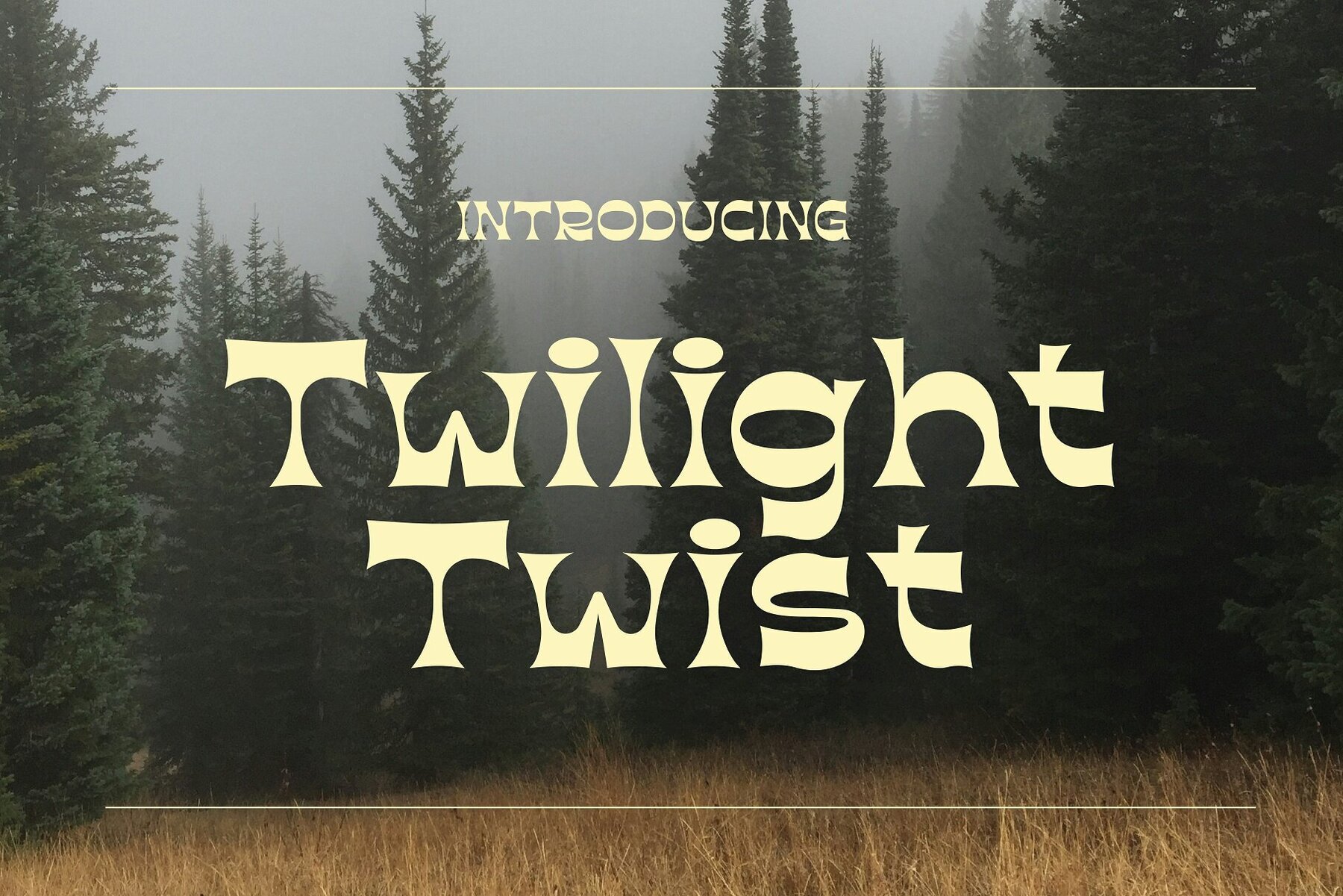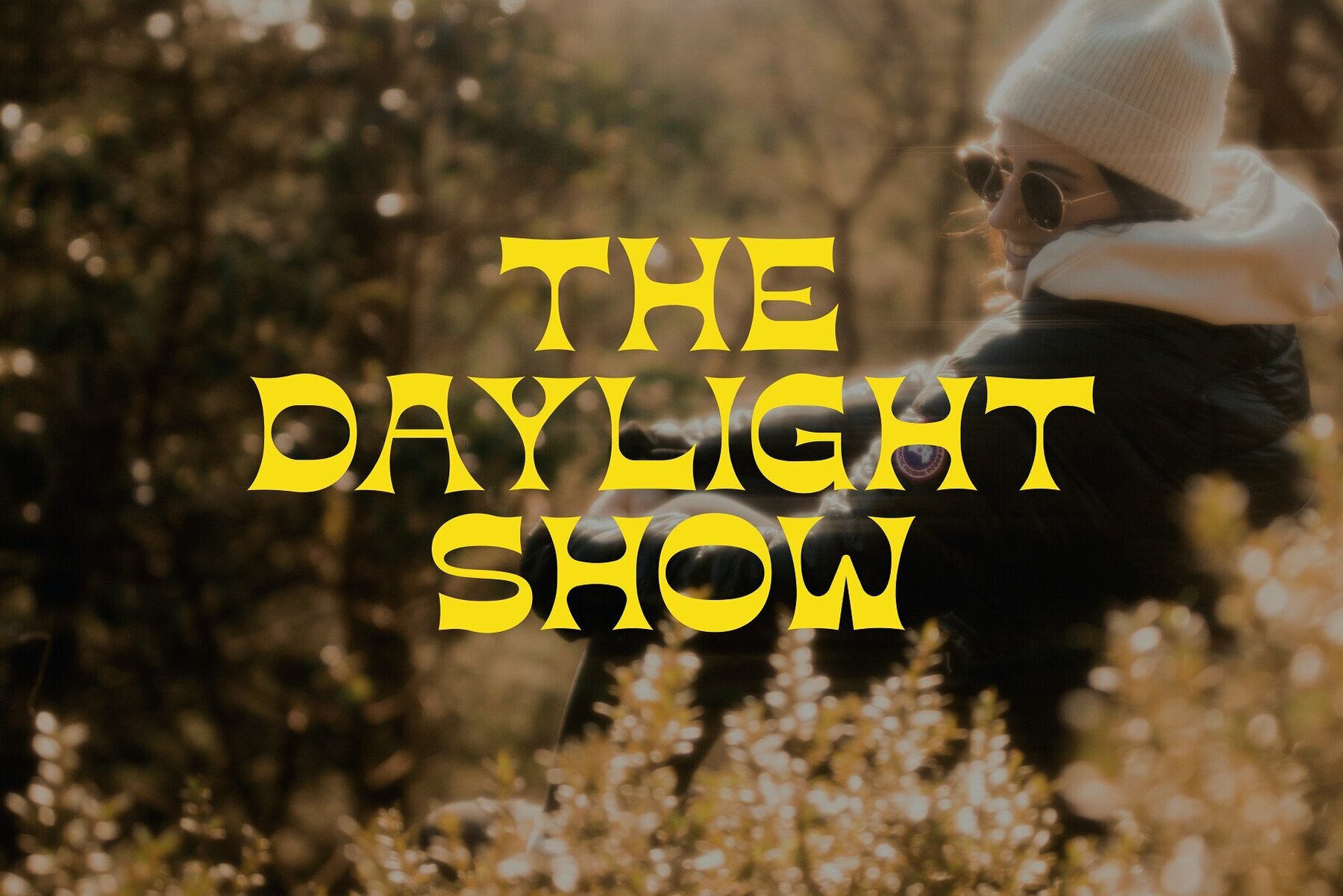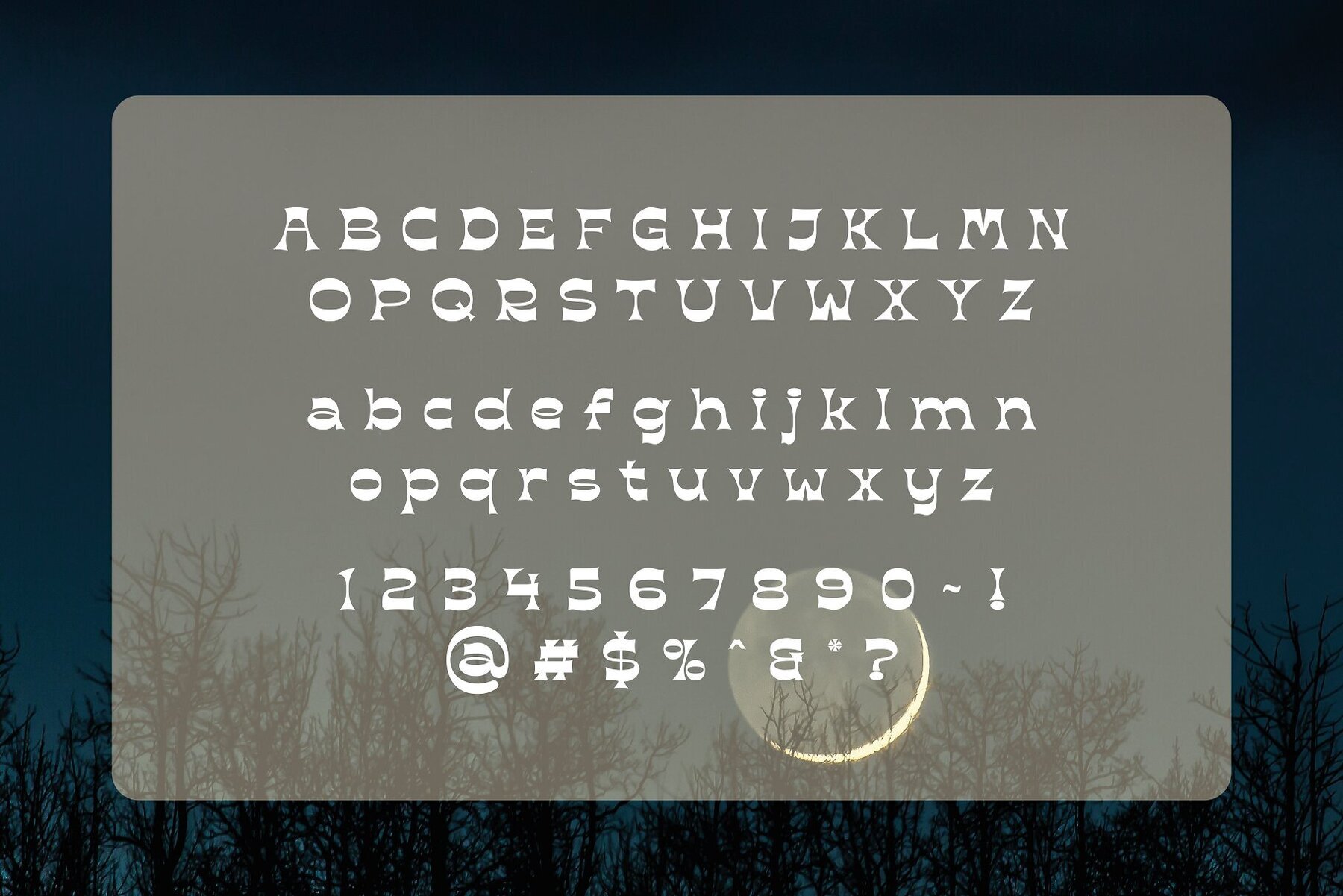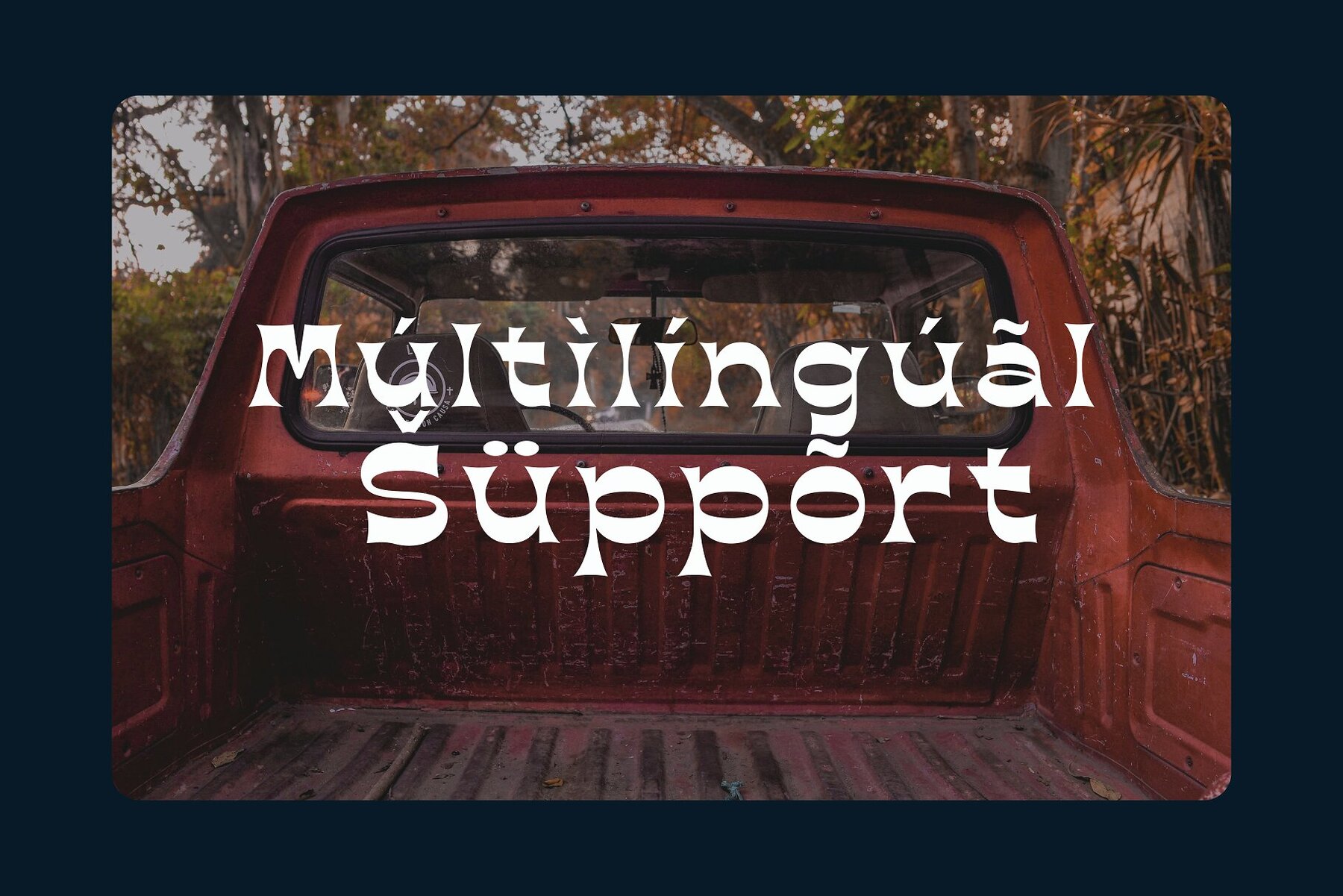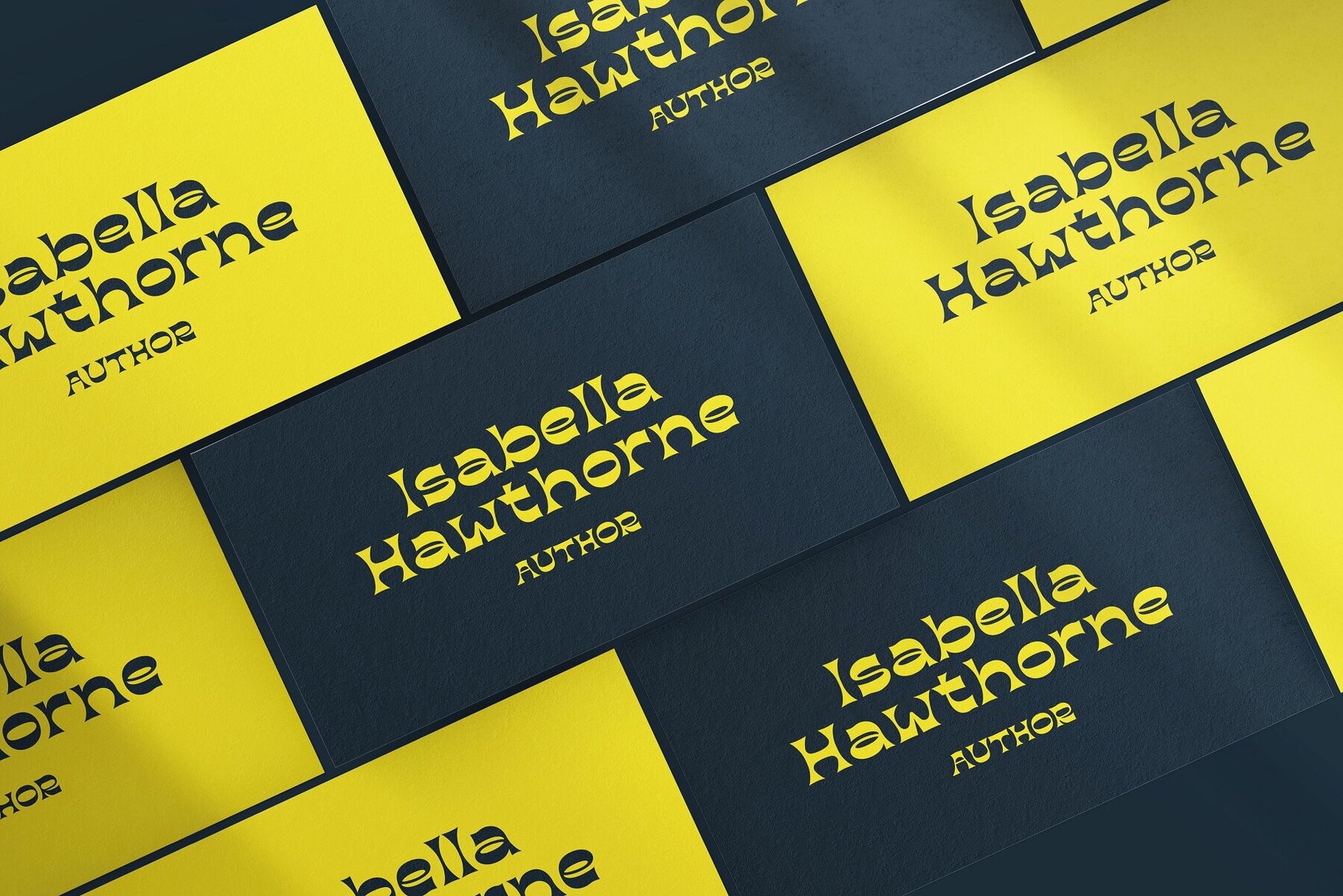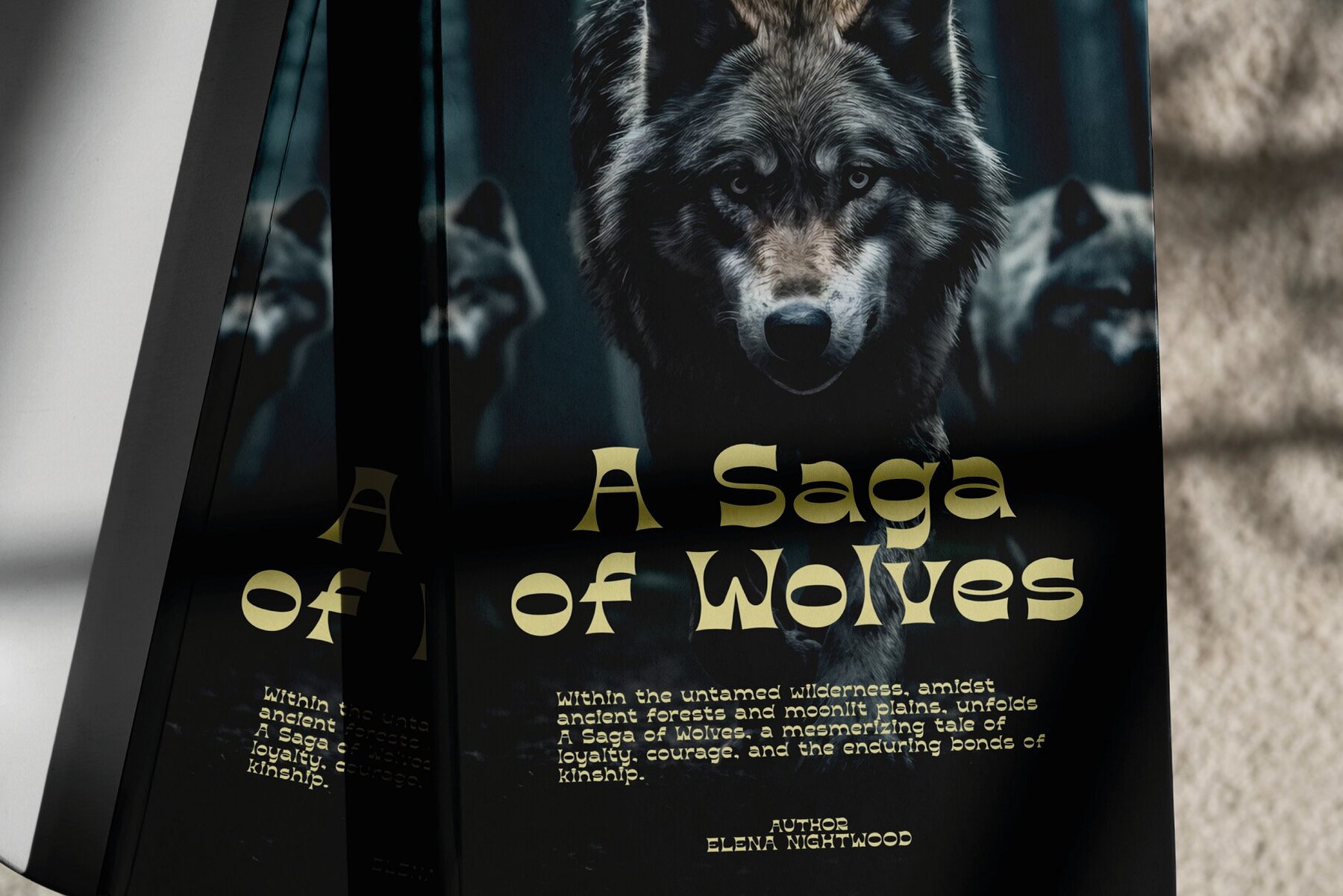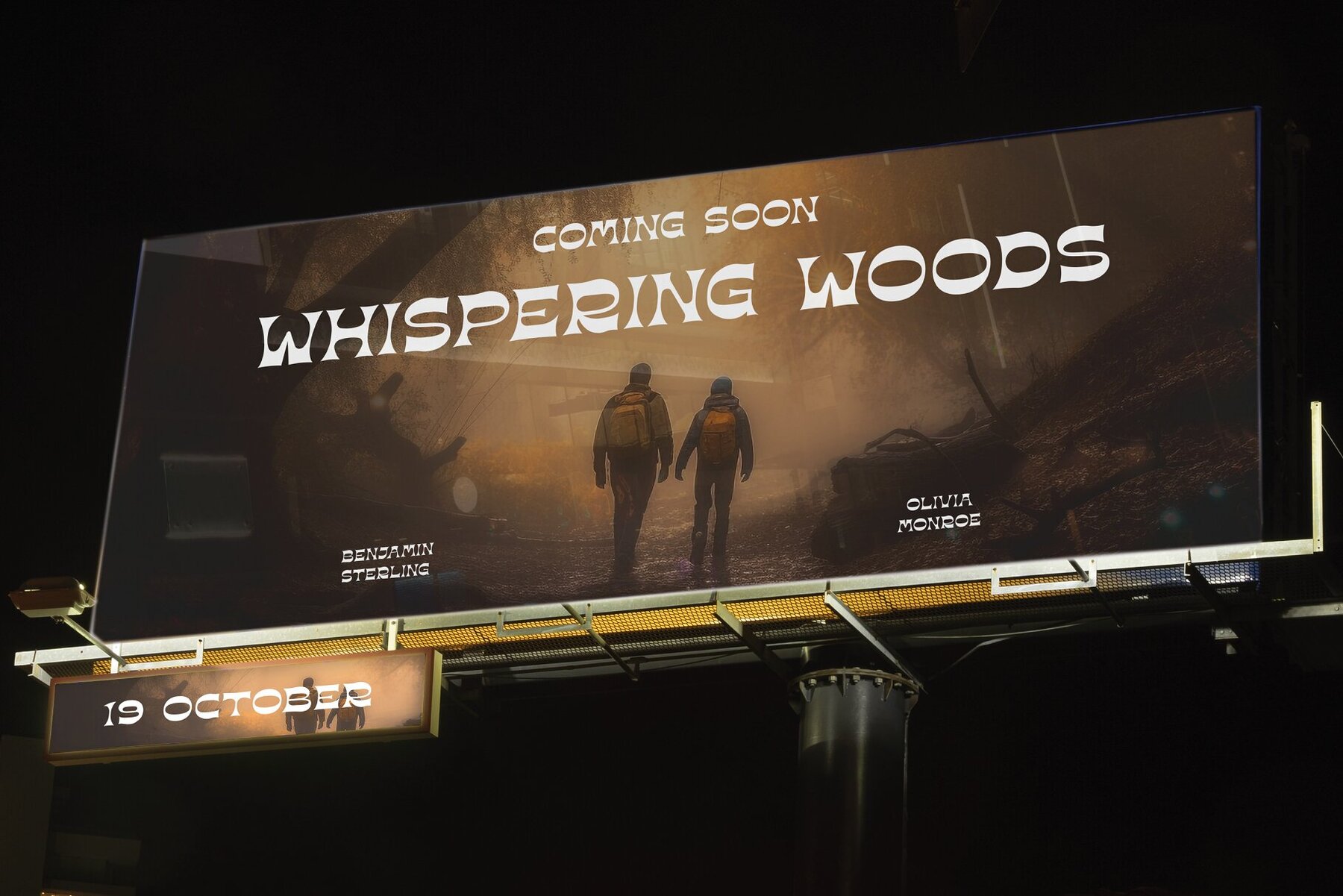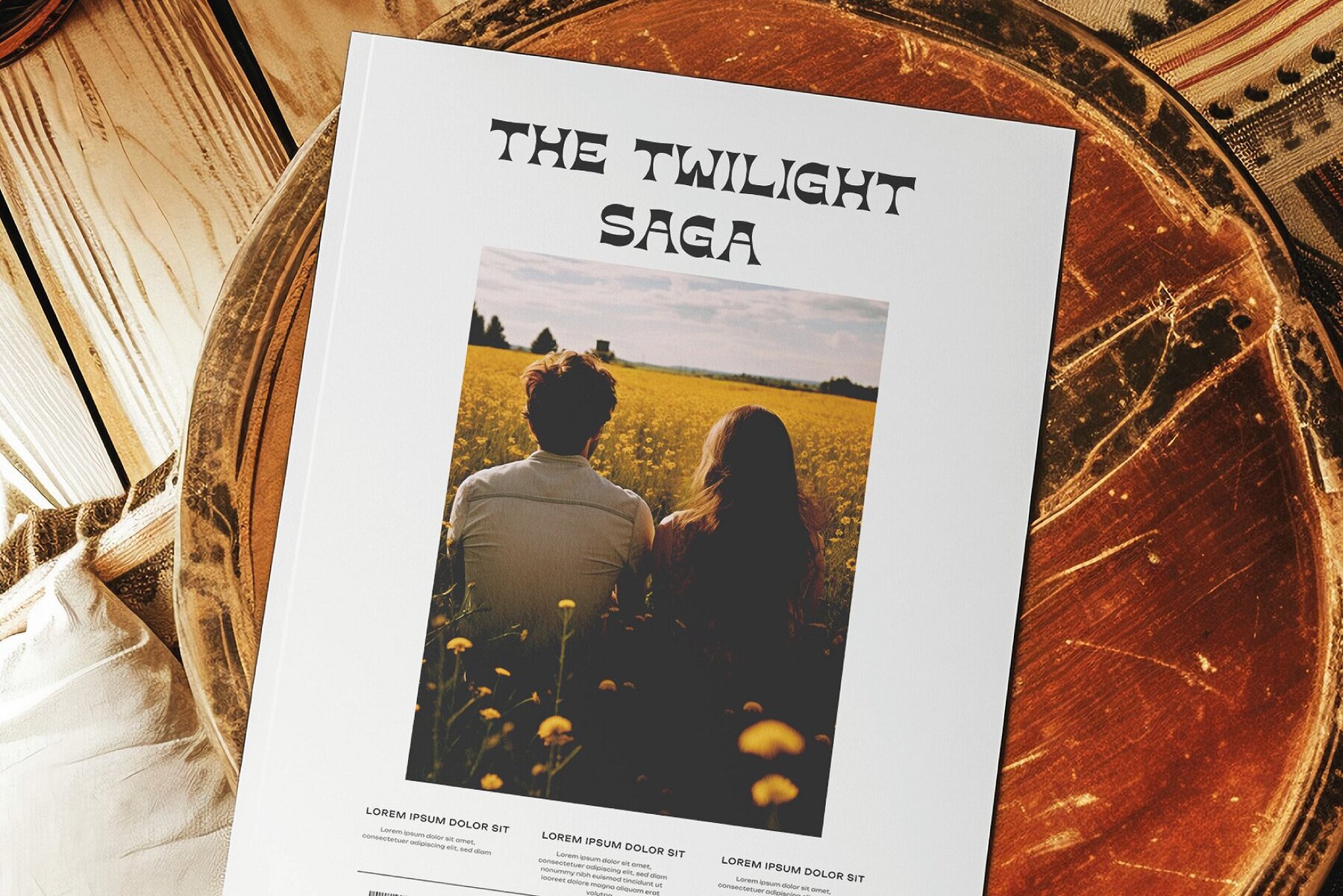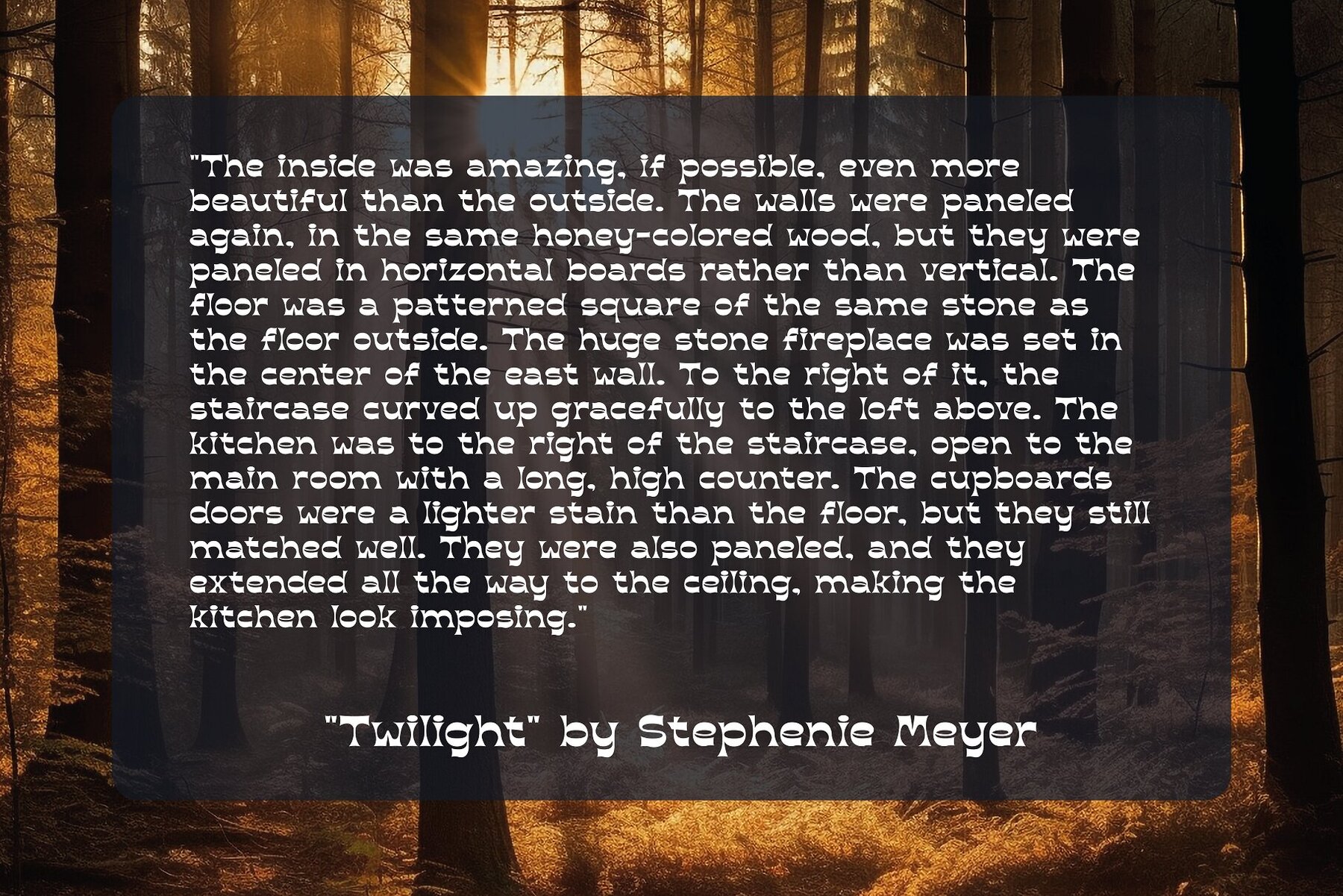
Twilight Twist
Venture into the enchanting hours of dusk with Twilight Twist, a retro typeface that harks back to the groovy era with a modern spin. This font is a harmonious blend of vintage design's bold confidence and the twilight hour's mysterious allure. Each character in Twilight Twist boasts strong, curved lines and an undeniably groovy flair, infused with the essence of retro stylings. The typeface dances across the page with a playful rhythm, reminiscent of retro album covers and psychedelic posters.
Twilight Twist is ideal for projects aiming to stand out with a touch of nostalgia. Perfect for music event branding, thematic bar menus, or any design piece needing a retro revival with a charismatic edge. Versatile and adaptable, it's equally at home in digital settings or printed materials, offering a wide range of creative applications. Take your audience on a journey through time with Twilight Twist—a retro typeface that nods to the past while celebrating contemporary design and embracing the mystical vibe of the fading light.